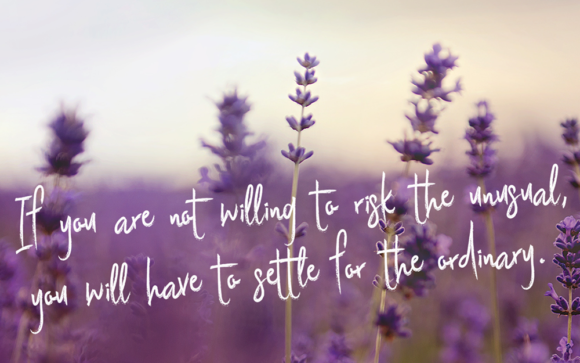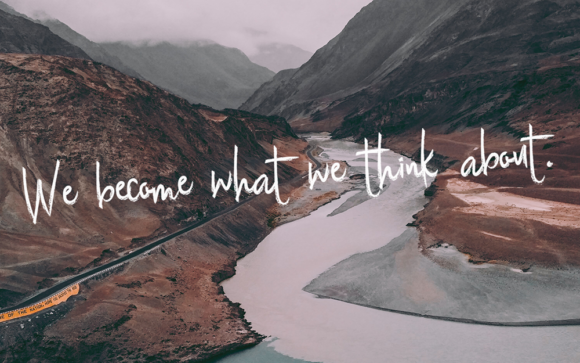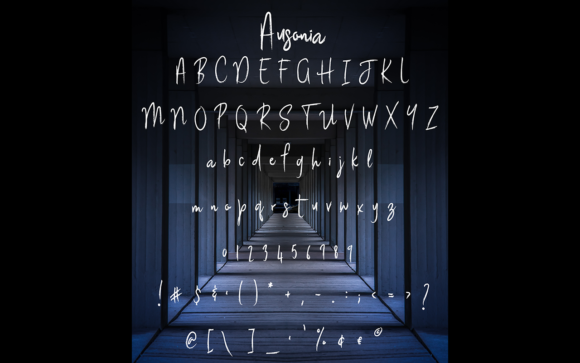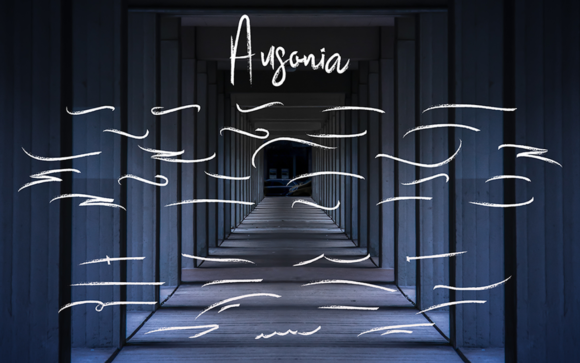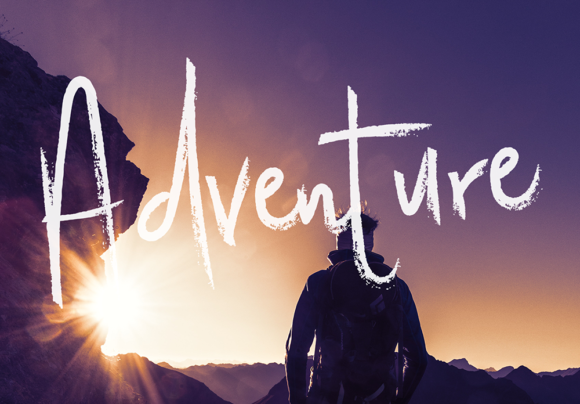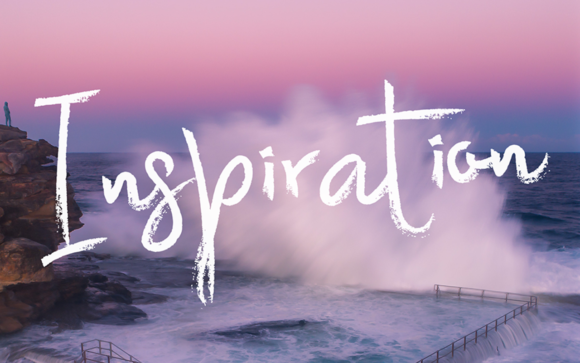
Introducing Ausonia Font: The Ultimate Brush Font for Creative Designs
Are you looking for a font that can add a touch of personality and uniqueness to your designs? Look no further than the Ausonia Font! This striking brush font is perfect for designers and crafters who want to create visually appealing and engaging content. With its great readability and rough effect, Ausonia Font is ideal for a wide range of projects, from social media posts to printable materials.
What Makes Ausonia Font Stand Out?
The Ausonia Font is a brush font that boasts a distinctive and eye-catching style. Its rough texture and fluid strokes give it a hand-crafted feel that’s perfect for adding a personal touch to your designs. Whether you’re creating social media graphics, posters, or labels, Ausonia Font is sure to make your content stand out from the crowd.
Key Features of Ausonia Font
- Great Readability: Despite its rough texture, Ausonia Font is incredibly readable, making it perfect for use in a variety of contexts, from body text to headings.
- Rough Effect: The font’s rough texture adds a touch of whimsy and personality to your designs, making them more engaging and attention-grabbing.
- Versatility: Ausonia Font can be used for a wide range of projects, including social media posts, Instagram stories, labeling, clothing, books, album covers, posters, and more.
Use Cases for Ausonia Font
So, what can you create with Ausonia Font? The possibilities are endless! Here are a few ideas to get you started:
- Social Media Graphics: Use Ausonia Font to create eye-catching social media graphics that showcase your brand’s personality.
- Instagram Posts: Add a touch of personality to your Instagram posts with Ausonia Font, perfect for creating engaging and shareable content.
- Labeling: Use Ausonia Font to create custom labels for your products, packaging, or crafts.
- Clothing and Apparel: Ausonia Font is perfect for creating custom designs for clothing, hats, bags, and more.
- Books and Magazines: Use Ausonia Font to add a touch of personality to your book or magazine covers, or to create engaging headings and titles.
- Album Covers: Create stunning album covers with Ausonia Font, perfect for musicians and music producers.
- Posters and Flyers: Use Ausonia Font to create eye-catching posters and flyers for events, promotions, or advertising campaigns.
- Printable Projects: Ausonia Font is perfect for creating printable art, gift tags, and other craft projects.
Why Choose Ausonia Font?
With so many fonts available, why choose Ausonia Font? Here are just a few reasons:
- Unique Style: Ausonia Font offers a unique and distinctive style that’s sure to make your designs stand out.
- Ease of Use: The font is incredibly easy to use, with great readability and a simple, intuitive design.
- Versatility: Ausonia Font can be used for a wide range of projects, making it a great addition to any designer’s toolkit.
In conclusion, Ausonia Font is a striking brush font that’s perfect for designers and crafters who want to add a touch of personality and uniqueness to their designs. With its great readability, rough effect, and versatility, Ausonia Font is ideal for a wide range of projects, from social media posts to printable materials. So why wait? Try Ausonia Font today and take your designs to the next level!